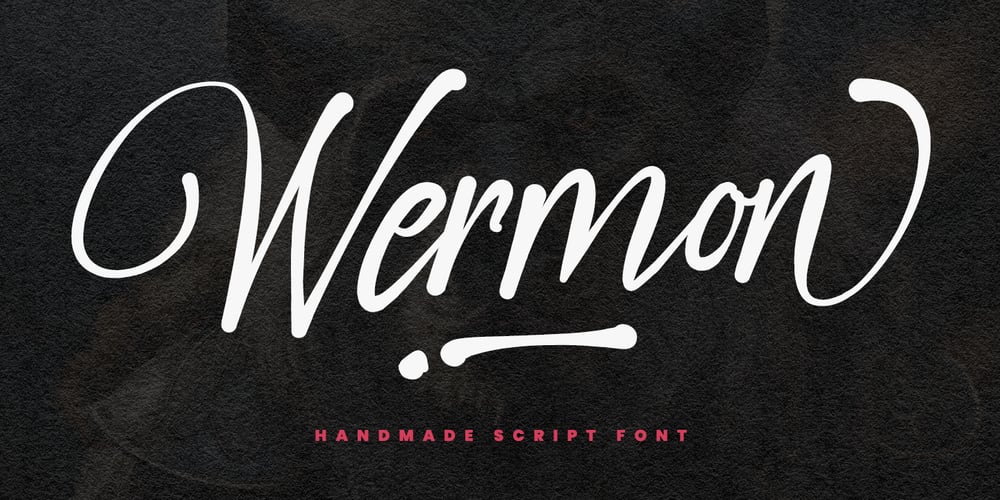
MC Wermon Font Family was designed by Gilang Maulana and published by Maulana Creative. MC Wermon contains 1 styles and family package options. Give your designs an authentic brush handcrafted feel. “Wermon Handmade Script Font” is perfectly suited to signature, stationery, logo, typography quotes, website header, branding and more.Thanks for use this font.Maulana Creative.